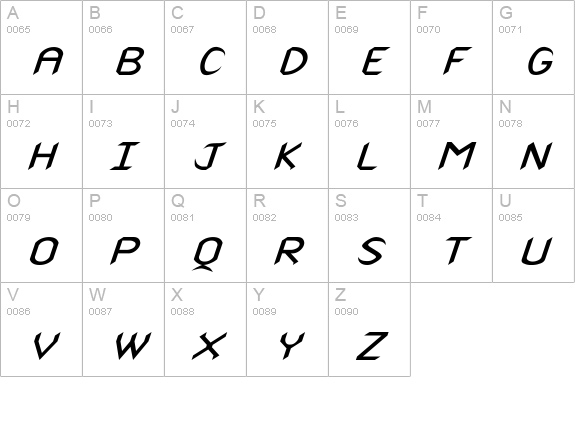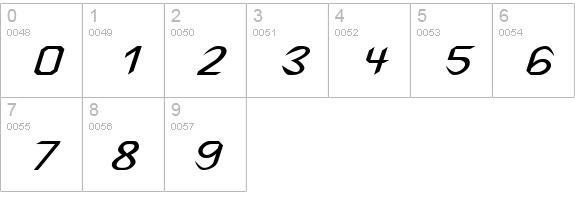
Rscanaith Wd Italic Font Details
Rscanaith Wd Italic is a distinctive, italic variant in the Rscanaith typeface family \xE2\x80\x94 well suited to design and typography projects.
Introducing Rscanaith Wd Italic font, a sleek and modern typeface that exudes elegance and sophistication. With its unique italicized design, Rscanaith Wd Italic adds a touch of flair to any project, making it perfect for branding, advertising, and more. This stunning font is not only visually appealing but also highly versatile, suitable for a wide range of design applications. Whether you're looking to create eye-catching headlines, stylish logos, or elegant invitations, Rscanaith Wd Italic has you covered. And the best part? Rscanaith Wd Italic font is completely free to download at FontsMarket.com, making it accessible to designers and creatives of all levels. Don't miss out on adding this beautiful font to your collection today!